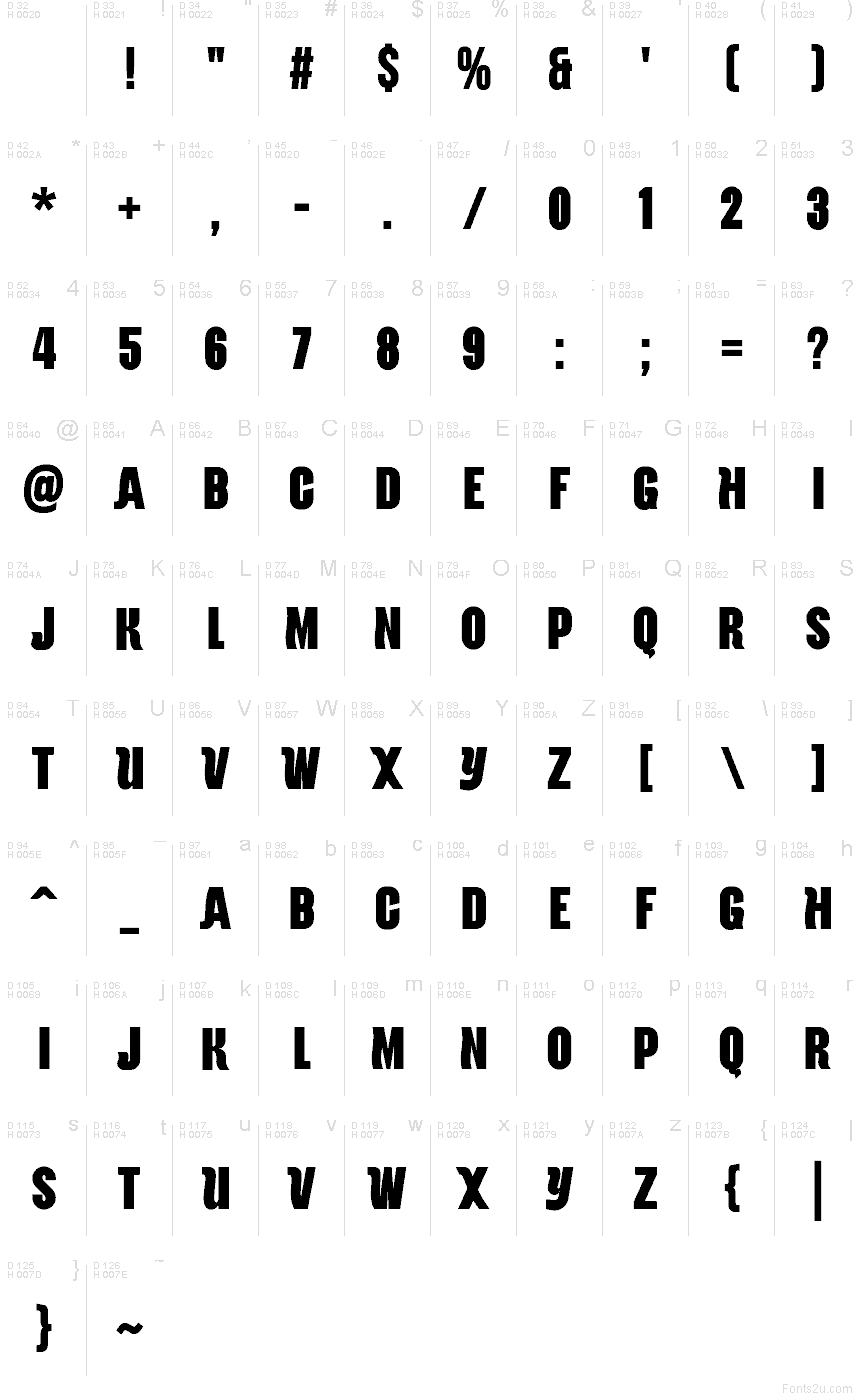
Faculty
Faculty font by Graphicxell is a free display typeface with a bold, carved-from-ink look that grabs attention instantly. Its chunky verticals, squeezed counters, and quirky width changes create a punchy rhythm that feels both rebellious and controlled, like protest posters taped to a brick wall. Letters look slightly warped in a deliberate way, giving headlines a loud, offbeat personality that still reads clearly from a distance.
Using Faculty, this free font shines on gig posters, editorial covers, zines, streetwear branding, bold packaging, event flyers, and social media graphics that need a strong visual hook. Set it large to let those dense black shapes really breathe, and pair it with a clean, neutral sans-serif for body copy so the heavy letterforms stay in the spotlight.